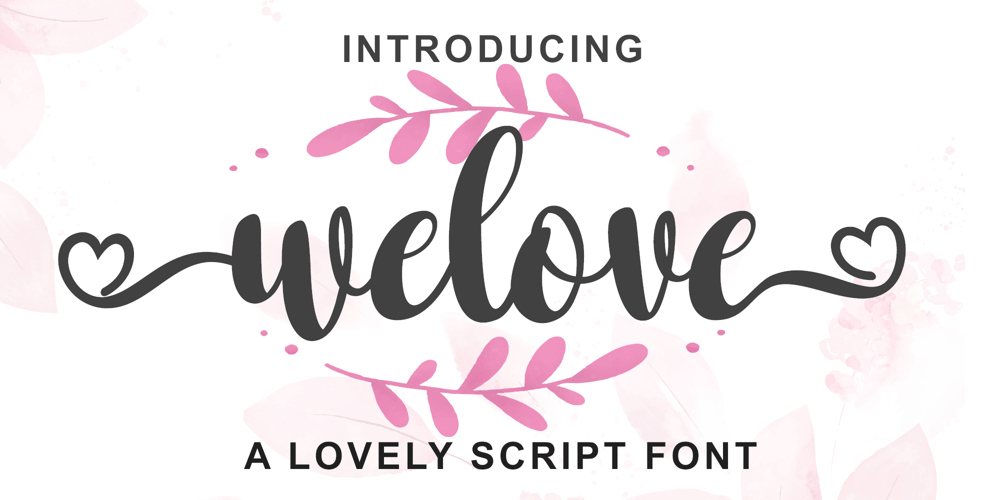
Welove Font Family was designed by Dian Haniffan Hadi and published by Beary. Welove contains 1 styles and family package options. welove a romantic and sweet calligraphy typeface with characters that dance along the baseline. It will add a luxury spark to any design project that you wish to create! This font is PUA encoded which means you can access all of the amazing glyphs and ligatures with ease!